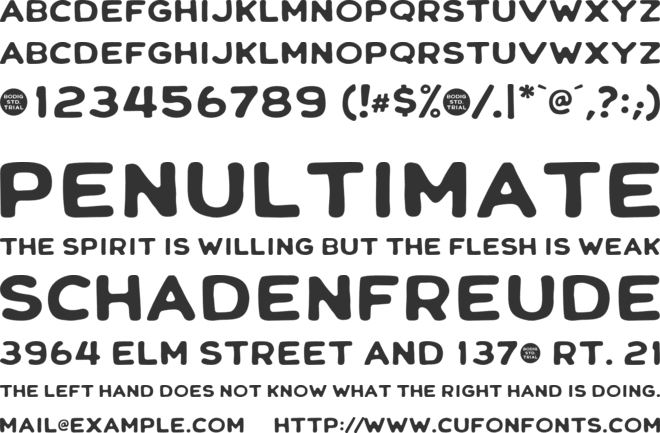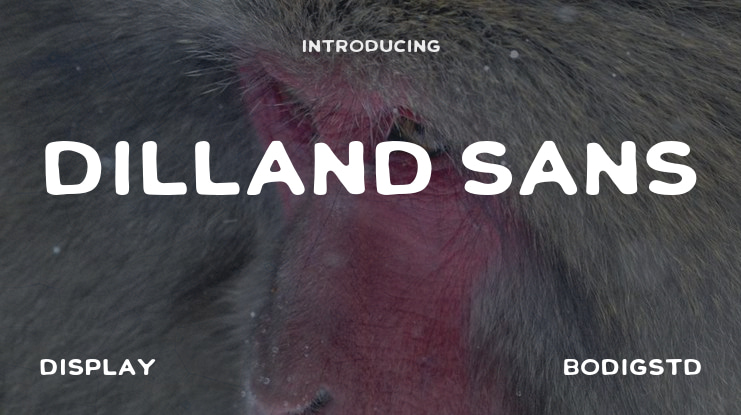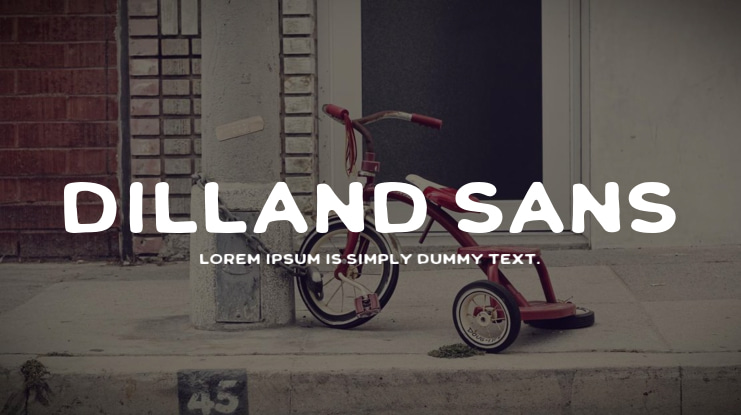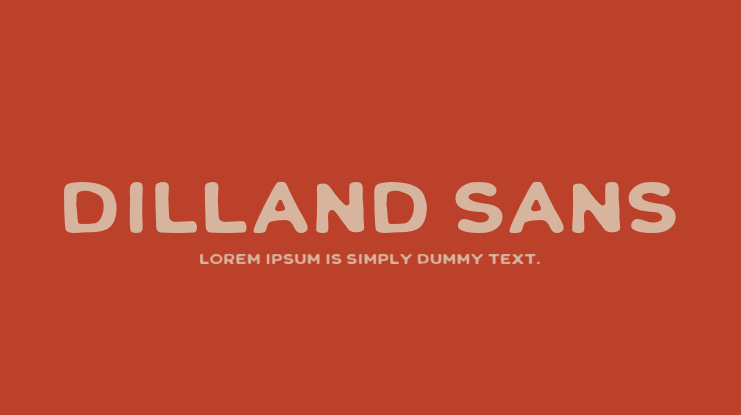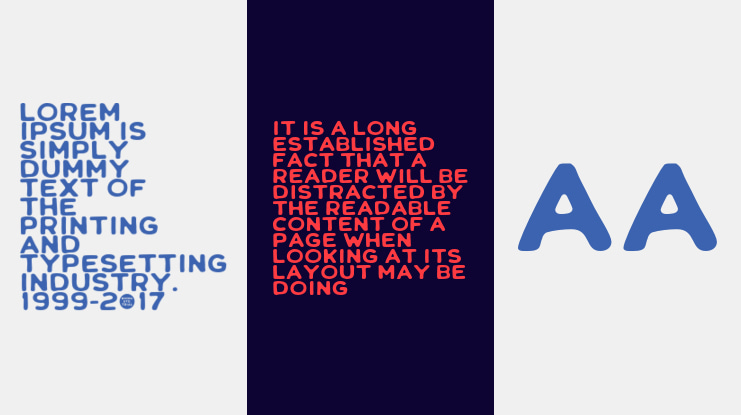
Dilland Sans Font Family
The Dilland typeface is a font duo composed of script and sans serif styles, featuring exquisite letters and an organic feel. This font is perfect for projects that require cursive handwriting and a natural, authentic touch, adding a classy element to your designs.